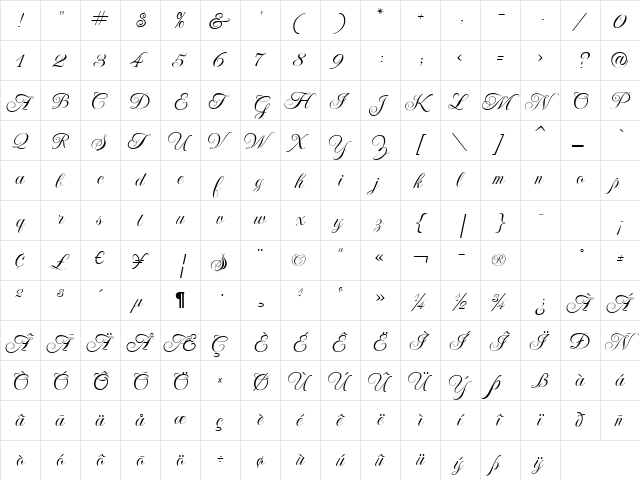
P22 Imperial Script Regular
| Foundry | P22 type foundry |
| Designer | Rob Leuschke |
Design Context for P22 Imperial Script Typeface
P22 Imperial Script brings a calligraphic fluidity to the page — its connecting strokes and expressive curves give it an unmistakably human quality.